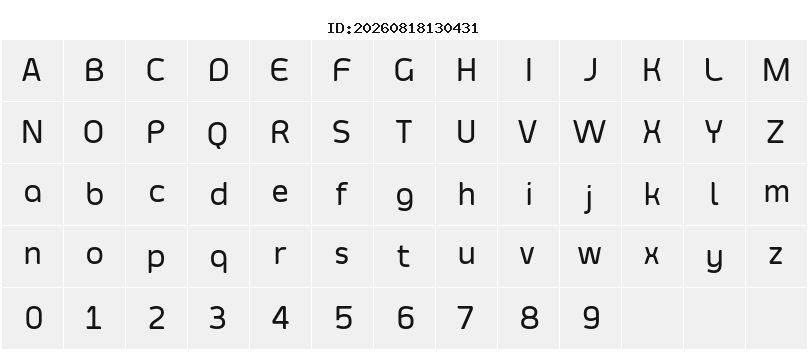
• Font Name: Smoolthan
• Designer: Situjuh Nazara
About Smoolthan.otf
Smoolthan.otf is a modern, elegant sans-serif font designed for ultimate readability and visual harmony. Perfect for branding, headlines, web design, and print materials.